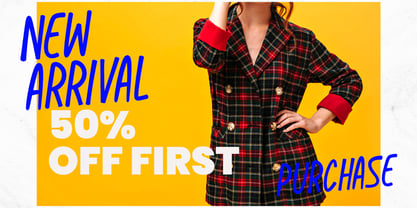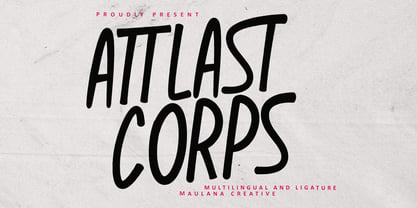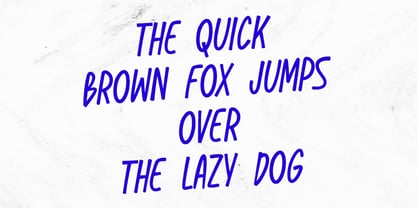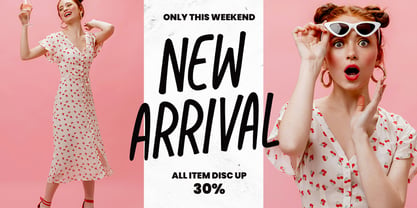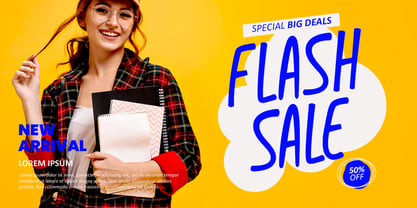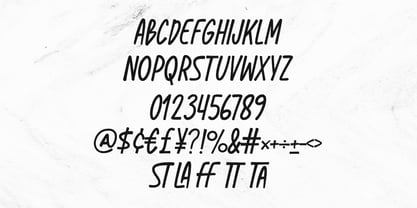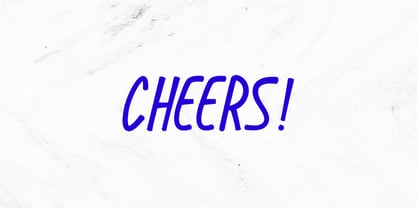
MC Attlast Corps
by Maulana Creative
The MC Attlast Corps Font Family was designed by Gilang Maulana and published by Maulana Creative. MC Attlast Corps contains 1 styles. More about this family
Attlast Corps is stylish handwritten display font combines modern elegance with playful energy, making it the perfect choice for eye-catching designs. Its tall and slightly quirky letterforms give a natural handwritten vibe that works beautifully for branding, fashion, social media posts, invitations, and promotional graphics. The font’s simple strokes and smooth curves create a trendy yet approachable feel, perfect for lifestyle brands, creative agencies, and anyone wanting to stand out with personality. With multilingual support and versatile usability, this font is ideal for headlines, product launches, advertising campaigns, and vibrant editorial design. Make your projects shine with a handwritten font that balances fun, modernity, and style.
Designers: Gilang Maulana
Foundry: Maulana Creative